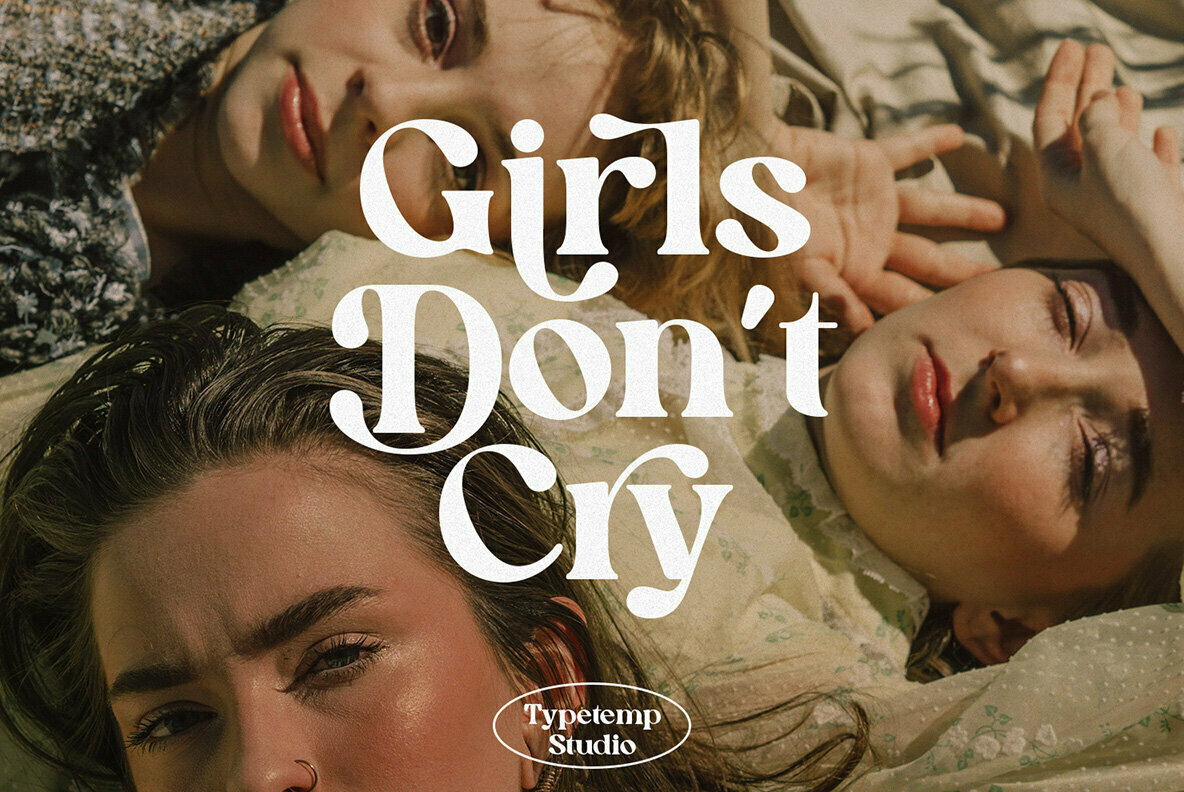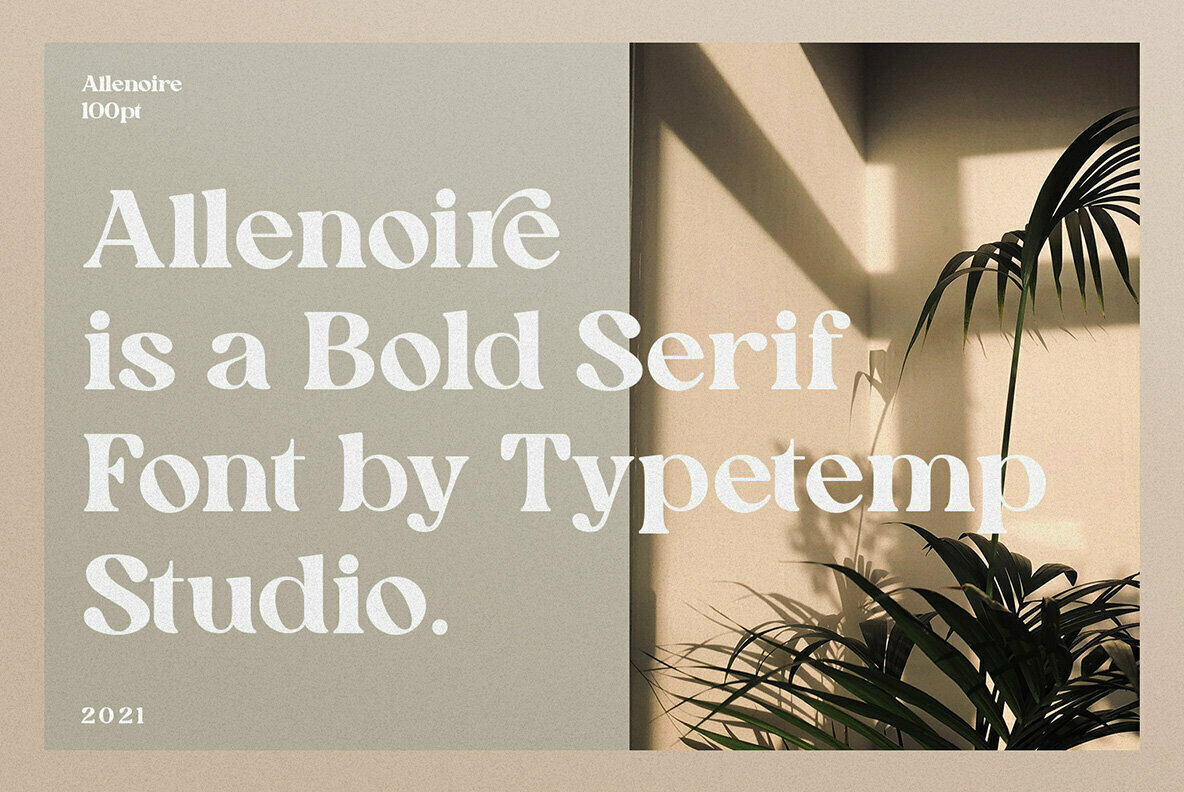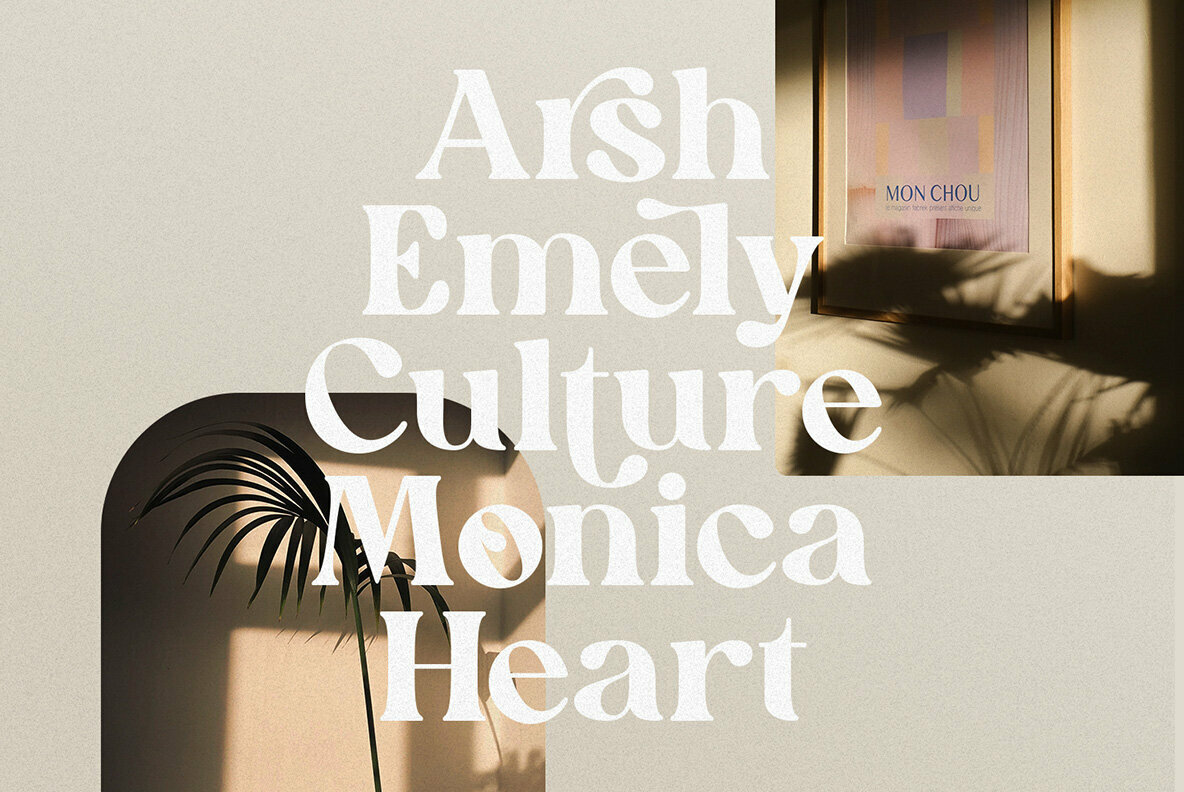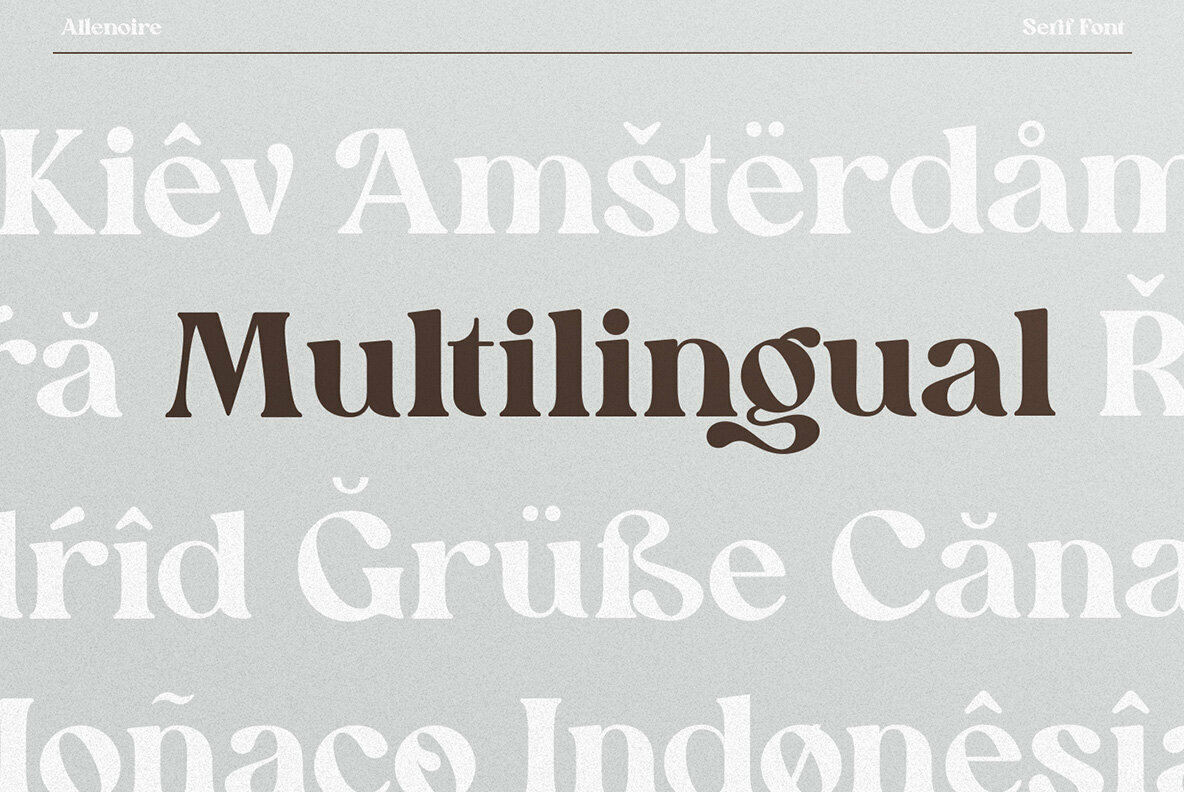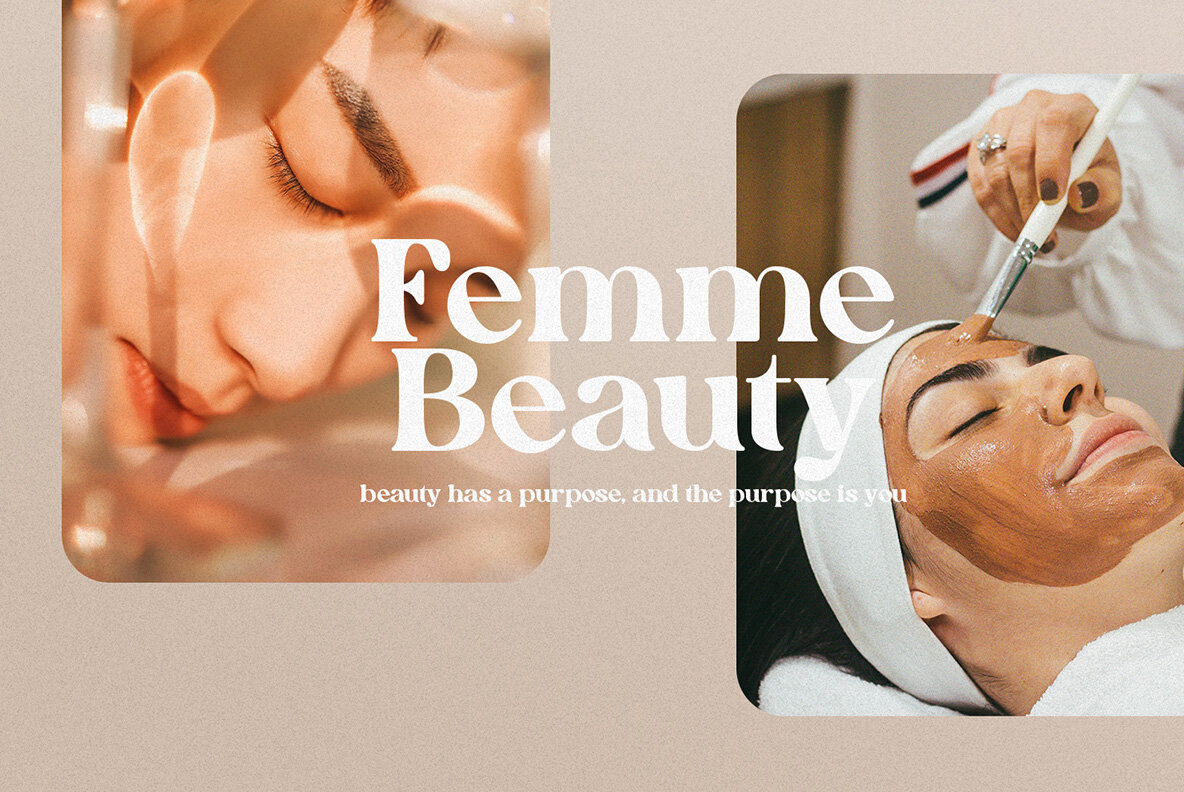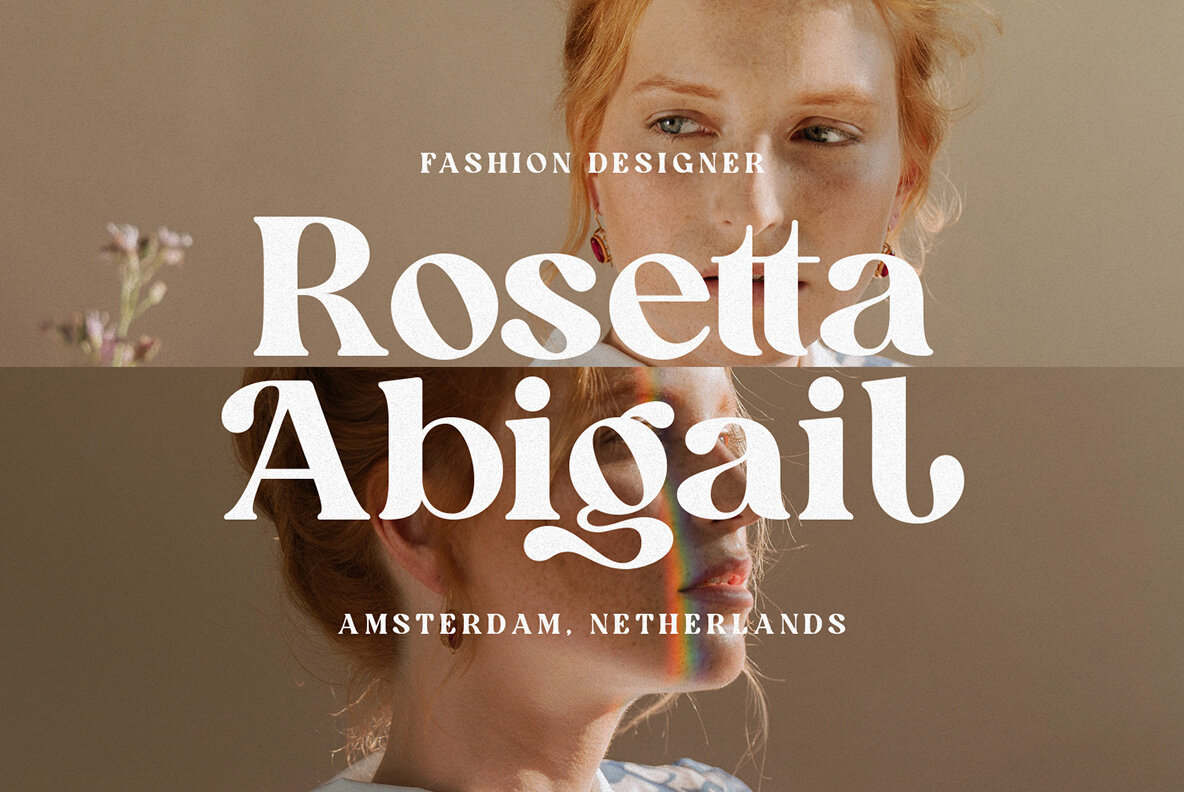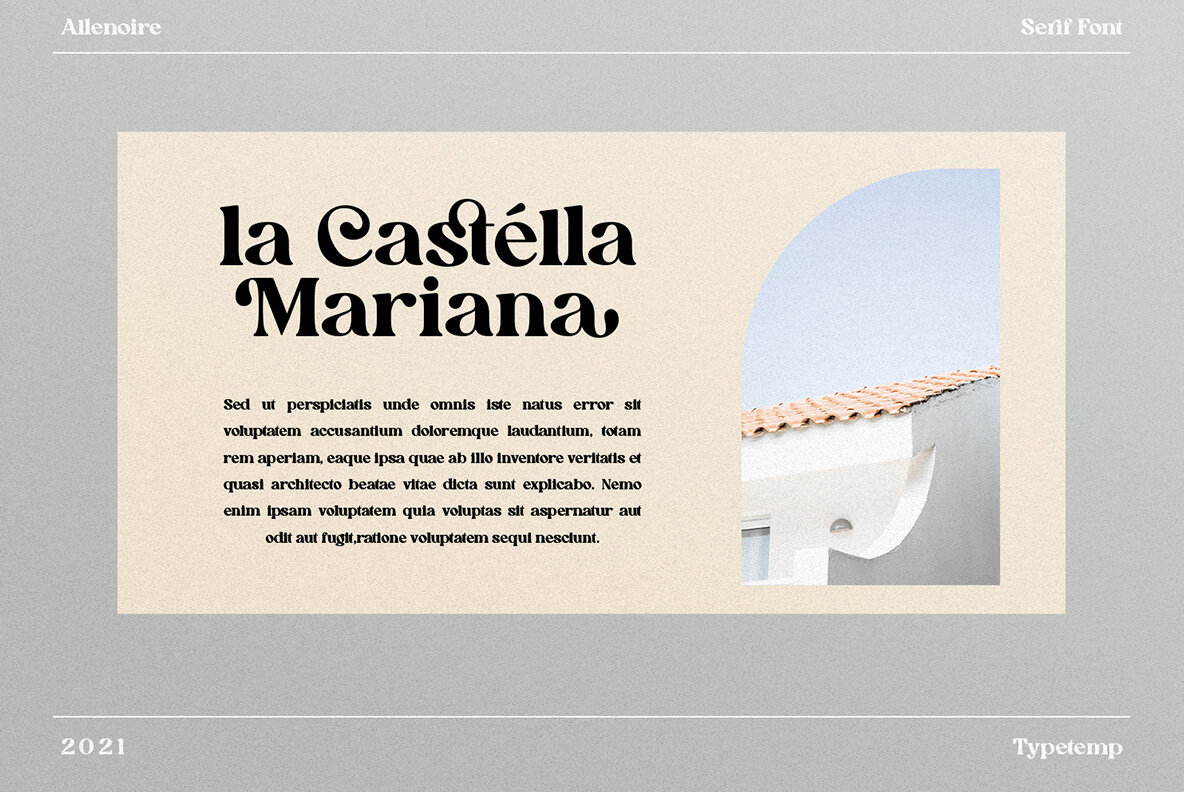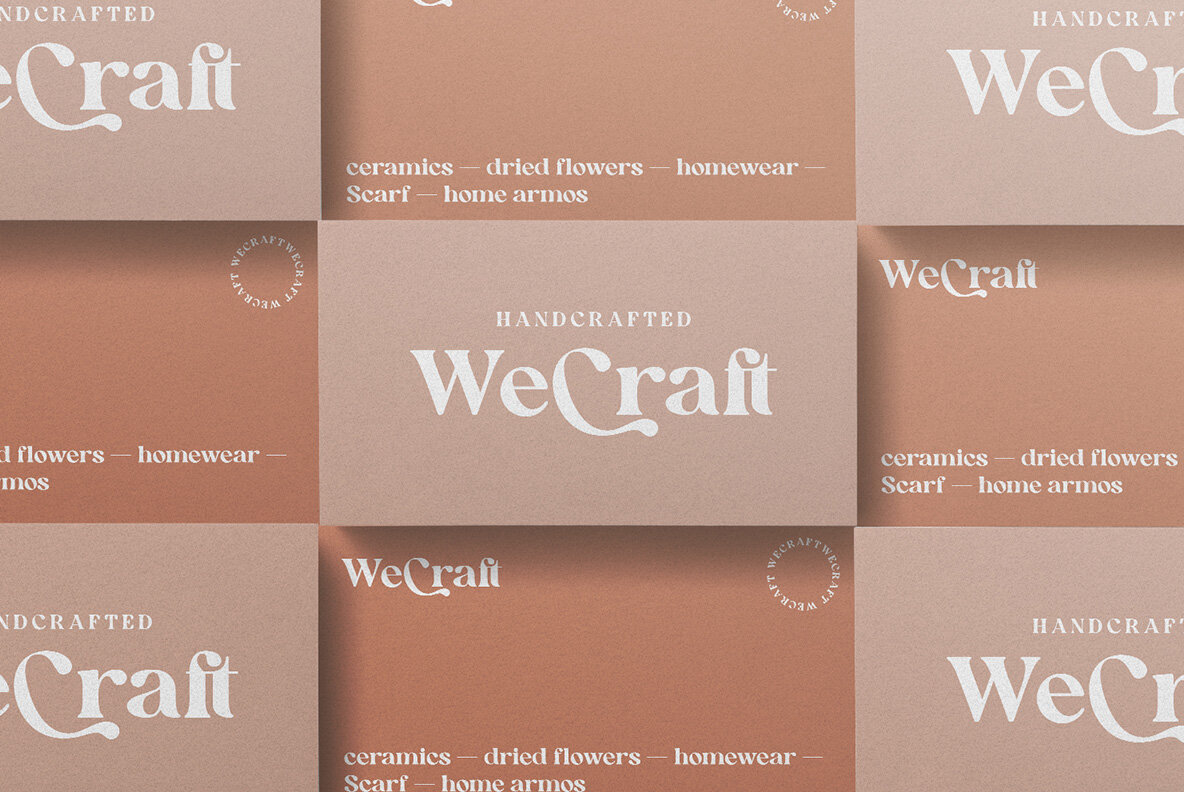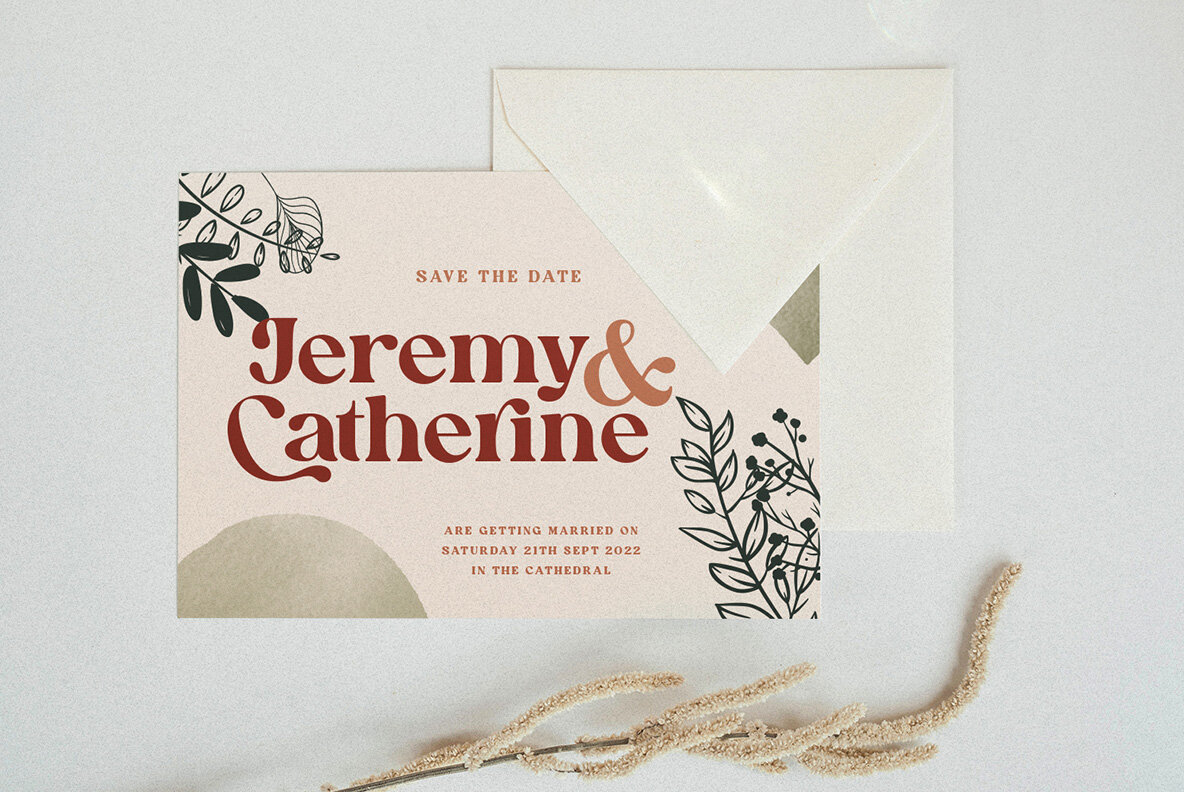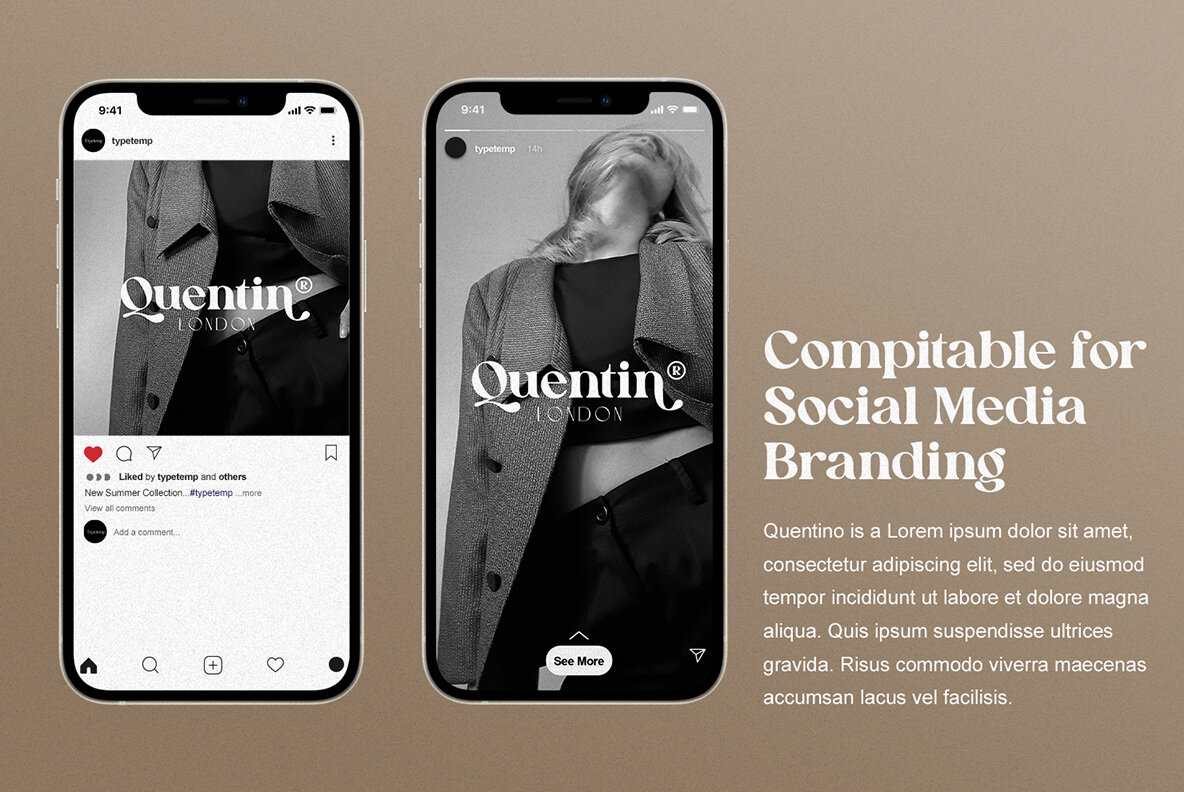
Allenoire Font
Allenoire Regular
Allenoire by Typetemp Studio offers a distinct blend of modern and retro aesthetics that make it ideal for diverse design projects. Its bold serif design features alternatives and ligatures, providing creative flexibility whether you're designing logos, crafting quotes, or enhancing blog posts. With applications ranging from branding to wedding invitations, this font is a versatile choice for any designer's toolkit.Allenoire: Modern Bold Serif with Retro Elegance